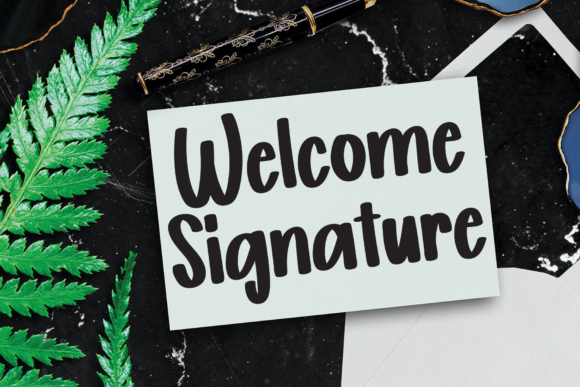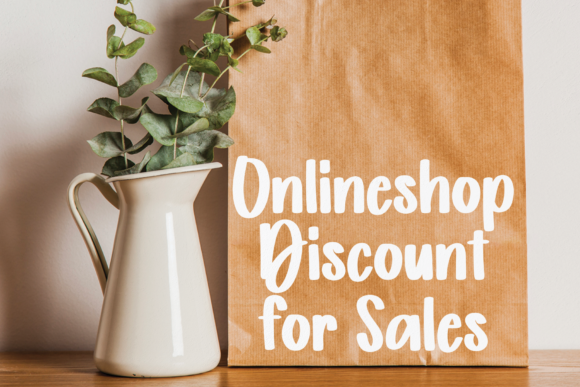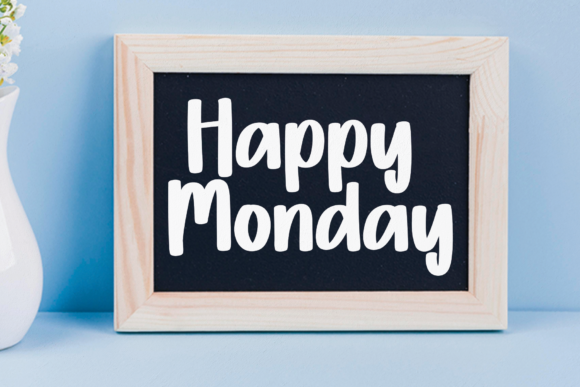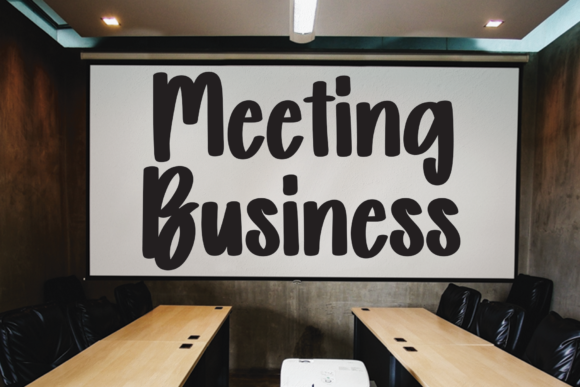
Introducing Birthday Vintage Font: The Perfect Addition to Your Design Arsenal
Are you tired of using the same old fonts for your designs? Look no further! If you’re a designer, crafter, or DIY enthusiast, you’re in for a treat. The Birthday Vintage Font is here to revolutionize the way you create and add a touch of personality to your projects. This casual and bold handwritten font is perfect for delivering any message with confidence, authenticity, and charm.
The Charm of Birthday Vintage Font
What sets Birthday Vintage Font apart is its unique blend of playfulness and sophistication. The font’s bold and expressive strokes are carefully crafted to convey a sense of nostalgia and whimsy, making it perfect for a wide range of design projects. Whether you’re creating greeting cards, branding materials, labels, or any other type of craft, this font is sure to elevate your work and make it stand out.
Key Features of Birthday Vintage Font
- Handwritten with love: The Birthday Vintage Font is a true handmade font, with each letter carefully crafted to give it a personal touch.
- Bold and casual: This font is perfect for making a statement, with its bold strokes and casual vibe.
- Authentic and charming: The font’s unique character is sure to add a touch of authenticity and charm to any design.
- Versatile: From cards to branding, labels, and more, this font is perfect for a wide range of crafting ideas.
How to Use Birthday Vintage Font in Your Designs
The possibilities are endless when it comes to using the Birthday Vintage Font. Here are a few ideas to get you started:
- Greeting cards: Add a personal touch to your birthday cards, thank-you notes, and other correspondence.
- Branding: Use the font to create unique and eye-catching logos, packaging, and advertising materials.
- Labels: Add a touch of personality to your labels, stickers, and other craft projects.
- DIY projects: Use the font to create custom signs, banners, and other decorative items for your home or office.
Why Choose Birthday Vintage Font?
With so many fonts to choose from, why should you choose Birthday Vintage Font? Here are just a few reasons:
- Unique and distinctive: This font is sure to set you apart from the crowd and add a touch of personality to your designs.
- High-quality: The font is carefully crafted to ensure that it looks great in any design.
Get Creative with Birthday Vintage Font
Whether you’re a seasoned designer or a DIY enthusiast, the Birthday Vintage Font is the perfect addition to your design arsenal. With its unique blend of playfulness and sophistication, this font is sure to inspire you to create something truly special. So why wait? Download the Birthday Vintage Font today and start adding a touch of personality to your designs!
In conclusion, the Birthday Vintage Font is a must-have for anyone who loves to create and add a personal touch to their designs. Its unique character, versatility, and ease of use make it the perfect choice for designers, crafters, and DIY enthusiasts alike. So go ahead, get creative, and make your designs stand out with the Birthday Vintage Font!